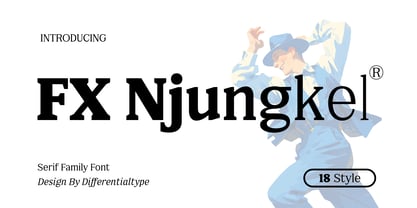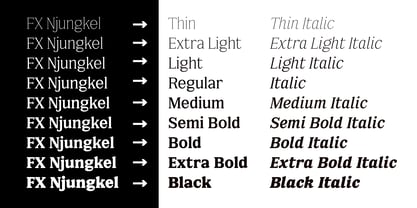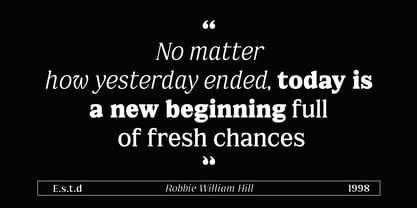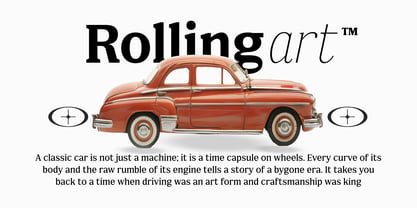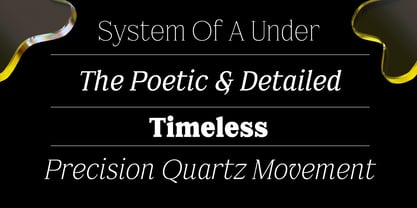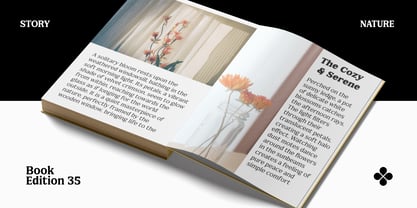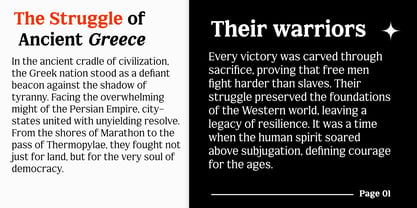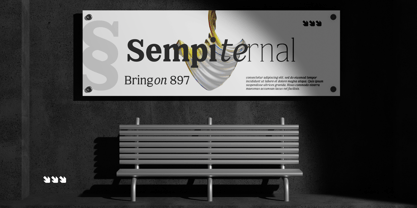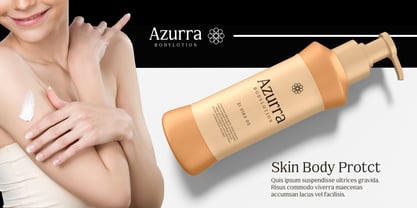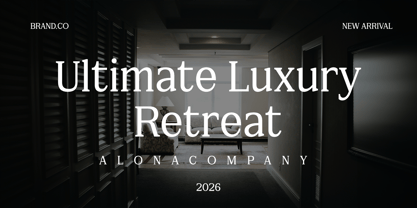
FX Njungkel
by Differentialtype
The FX Njungkel Font Family was designed by Sidik Sidik and published by Differentialtype. FX Njungkel contains 18 styles and family package options. More about this family
FX Njungkel is an enchanting vintage serif family that seamlessly bridges the gap between classic nostalgia and modern versatility. With a comprehensive collection of 18 styles, ranging from delicate Thin to commanding Black with matching Italics, this font is meticulously crafted for peak performance across any scale. Whether you need crystal-clear legibility for extensive body text or a bold, striking statement for high-impact displays, FX Njungkel adapts effortlessly to your creative vision, ensuring every word is both readable and remarkable. Designed as the ultimate solution for your design toolkit, FX Njungkel elevates everything from sophisticated logo branding and cinematic movie titles to captivating book covers and vibrant posters. Its timeless character adds a layer of professional polish to any project, making it an essential asset for designers who demand a font that is as functional as it is beautiful. Invest in FX Njungkel today and transform your creative ideas into iconic masterpieces that stand out in any medium.